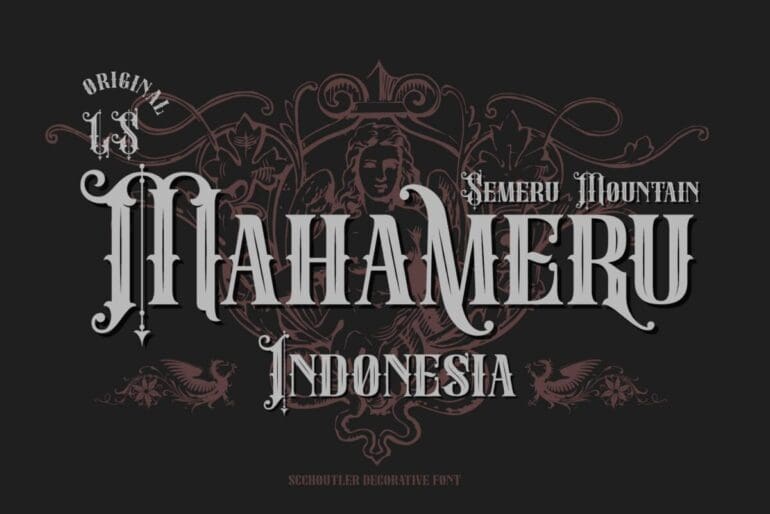
Scoutler Display Font
Scoutler Display Font. This pair was inspired by the retro motorbike poster design that I saw on some coffee shops, It was crafted by hand especially to add a natural handmade feeling in its brand identity then I make it clean with pentool. Opentype features Schoutler font has 201 character set included Schoutler Font is very good looking in logo, labels, t-shirt prints, product packaging, invitations, advertising, and others.